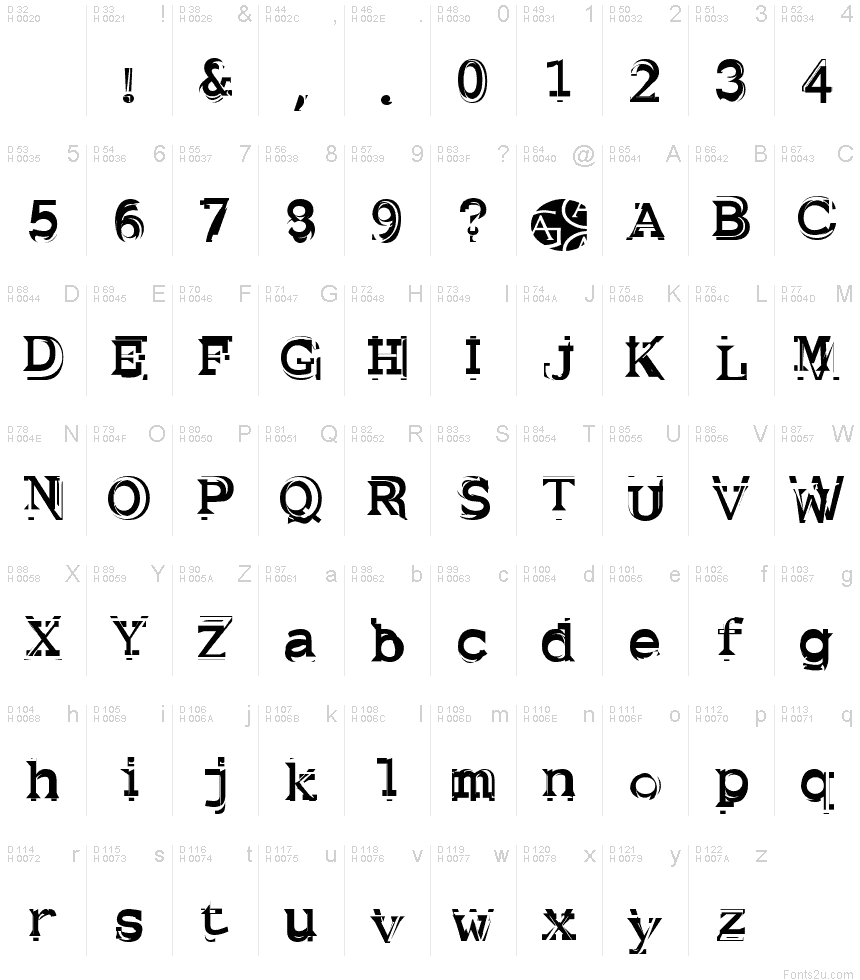
Rubric Cubed by Alexander Grecian of Elemeno is a free experimental serif display font built from sharply cut curves and blocky interruptions. Its changing stroke widths, split forms, and wedge-like details give the letters a fractured, architectural silhouette.
Designers working in alternative music and art publishing can use it for album packaging, exhibition posters, and magazine covers. The broken letterforms also suit surreal or collage-based imagery. In editorial work, its distorted serif shapes can become part of the cover artwork.